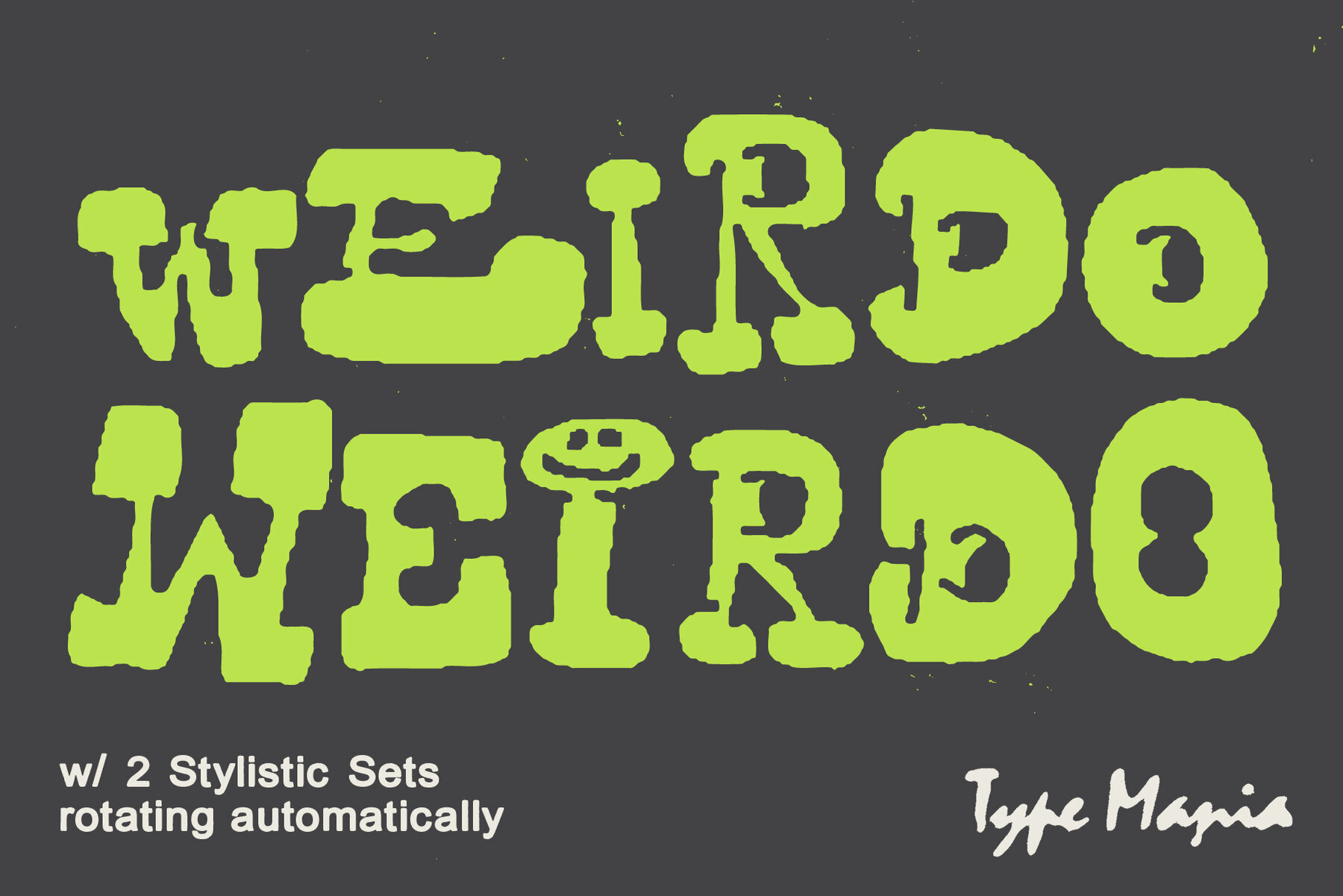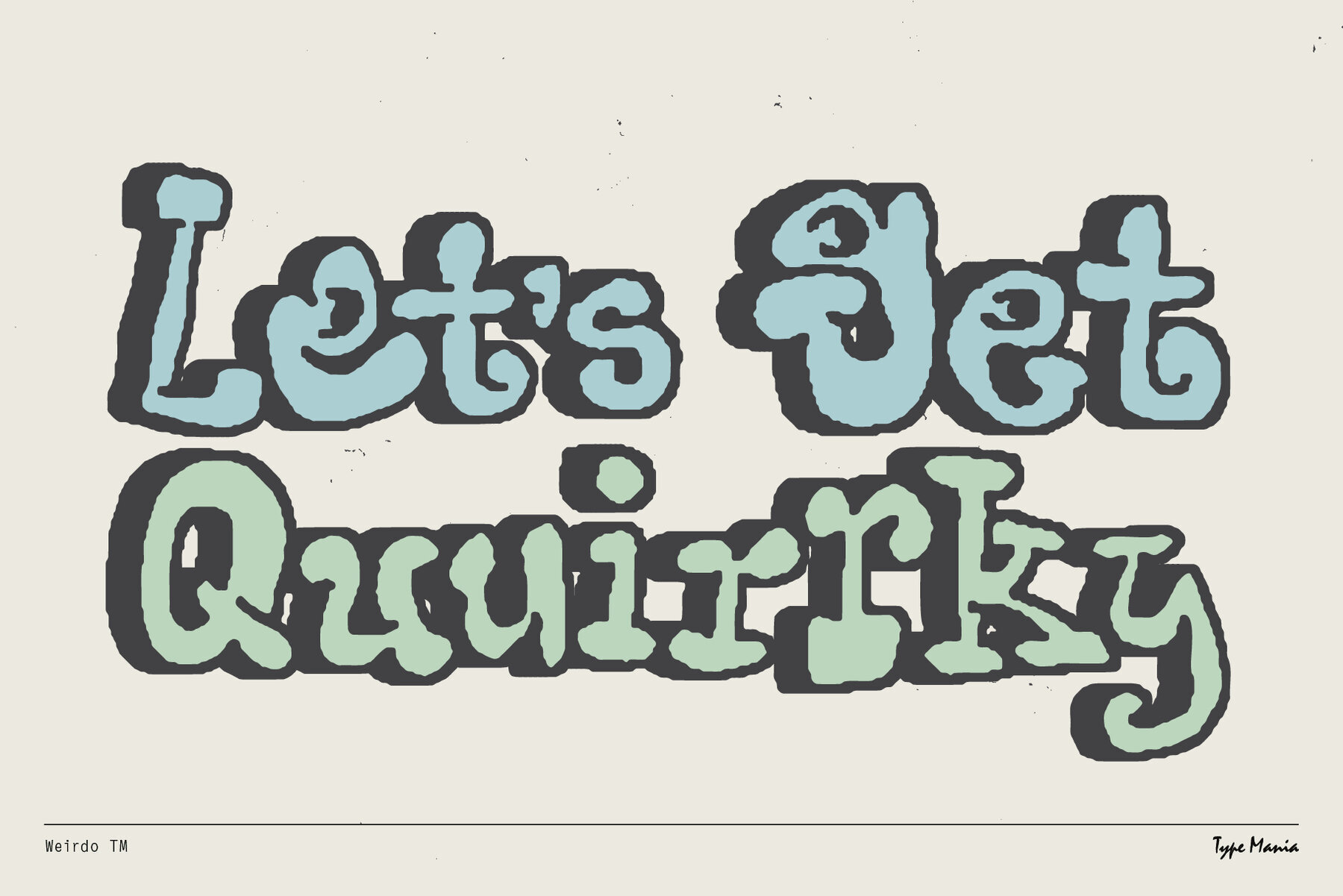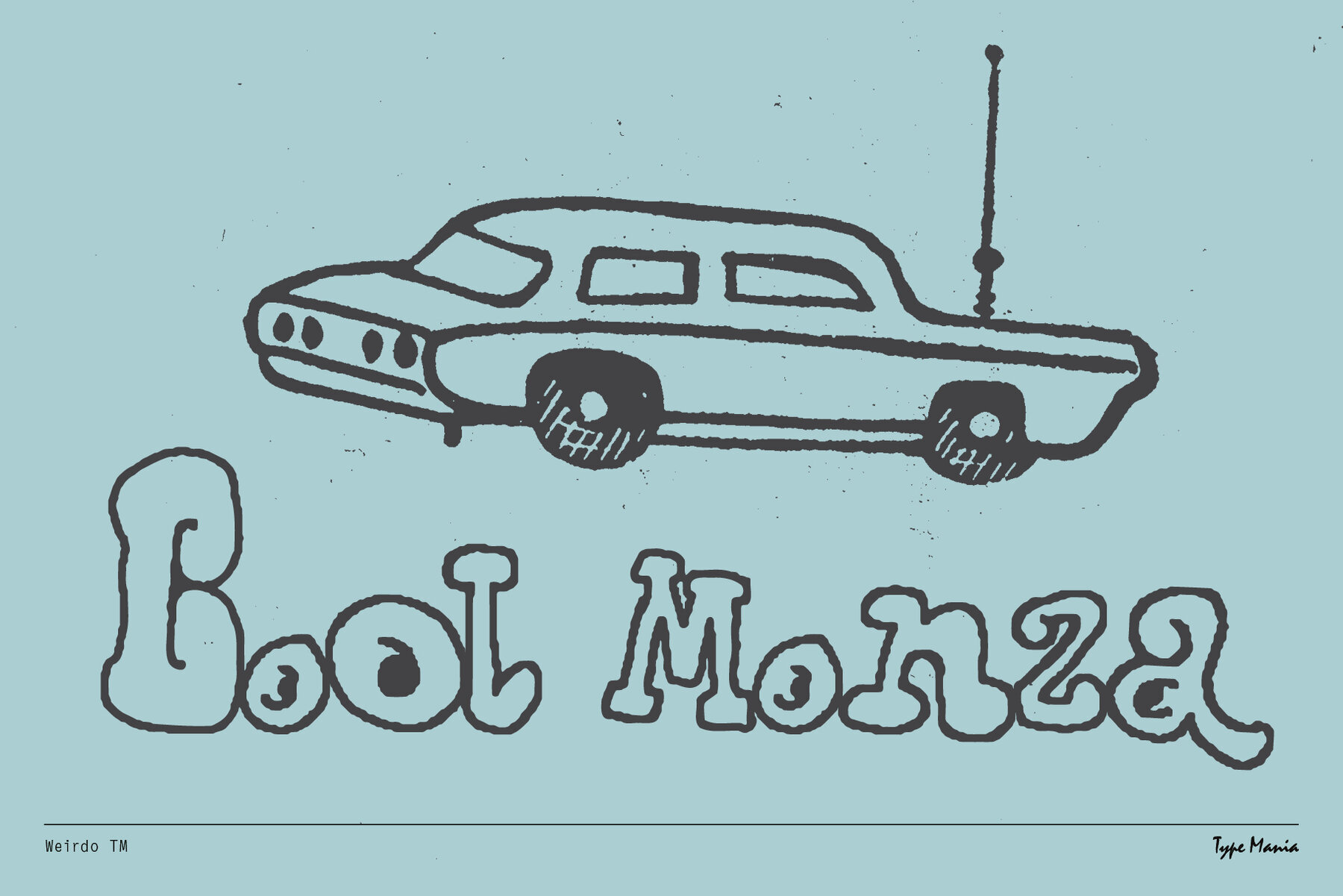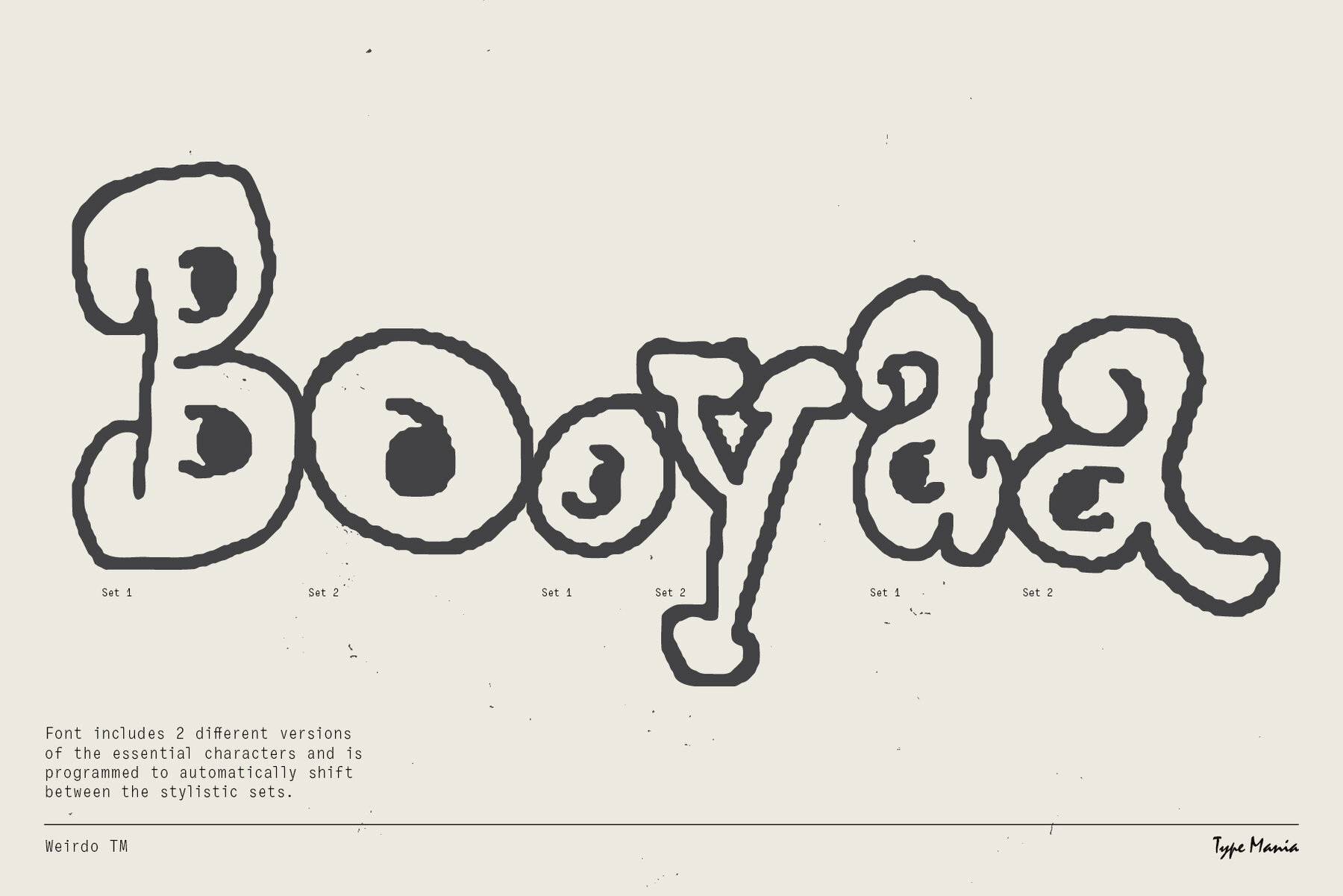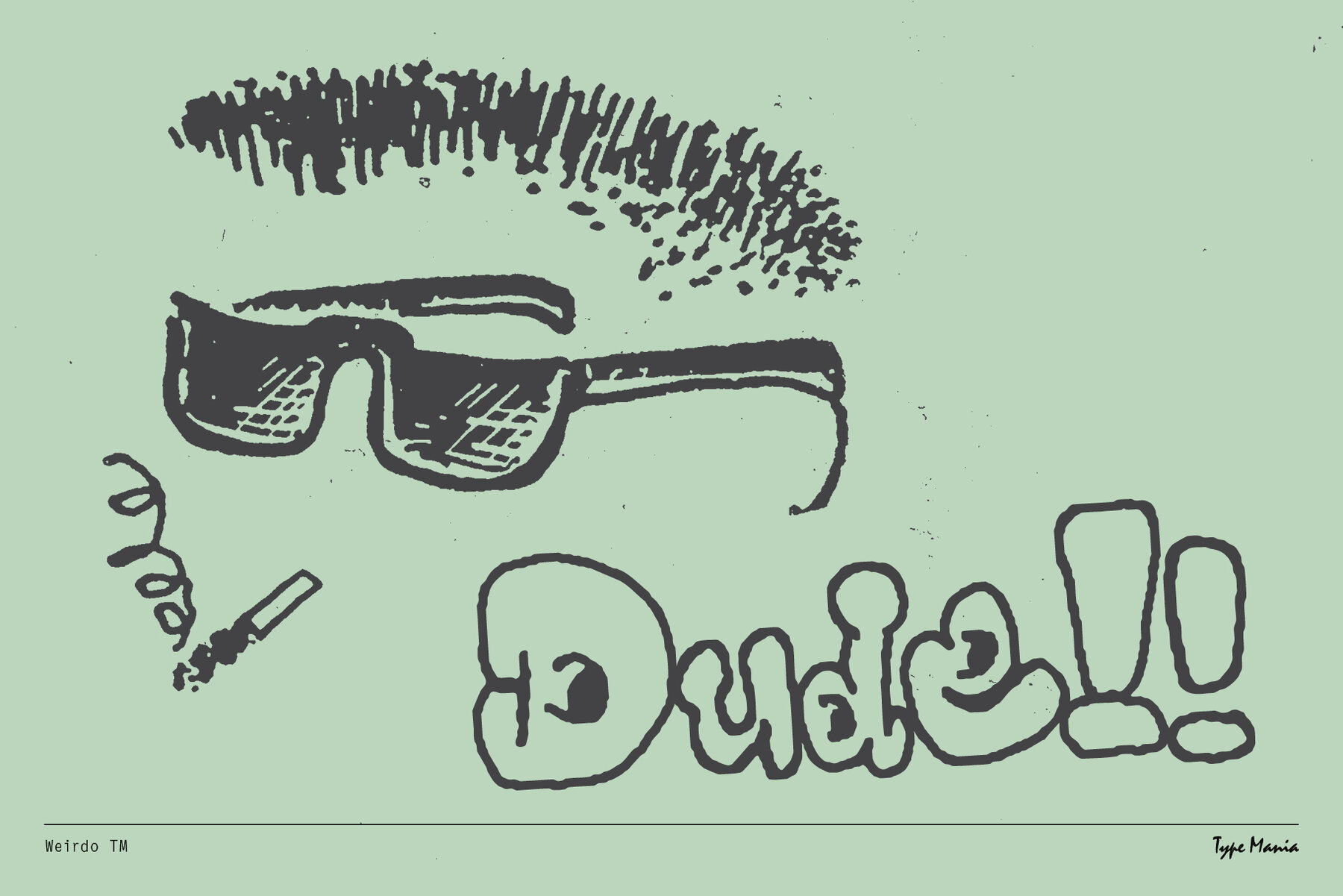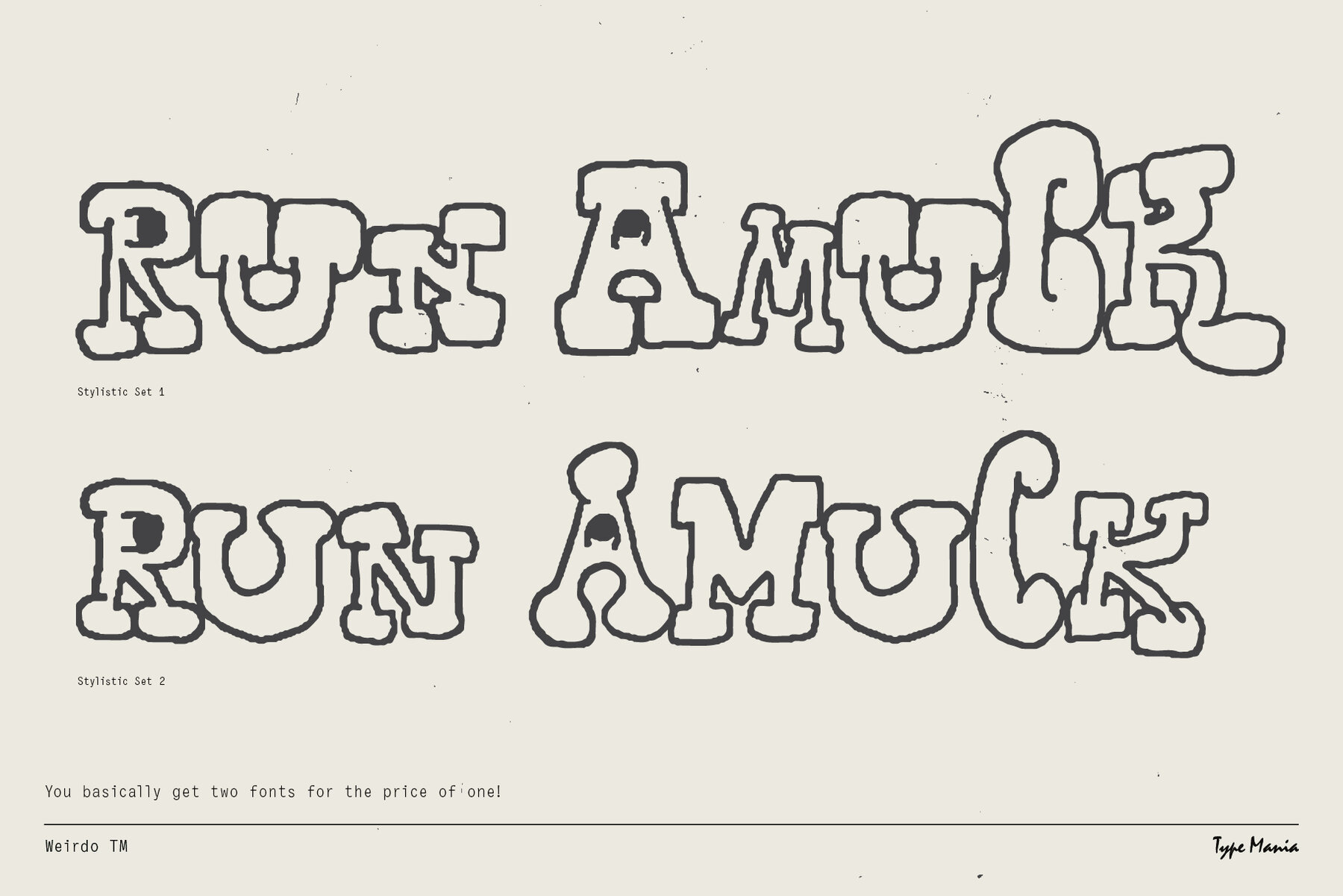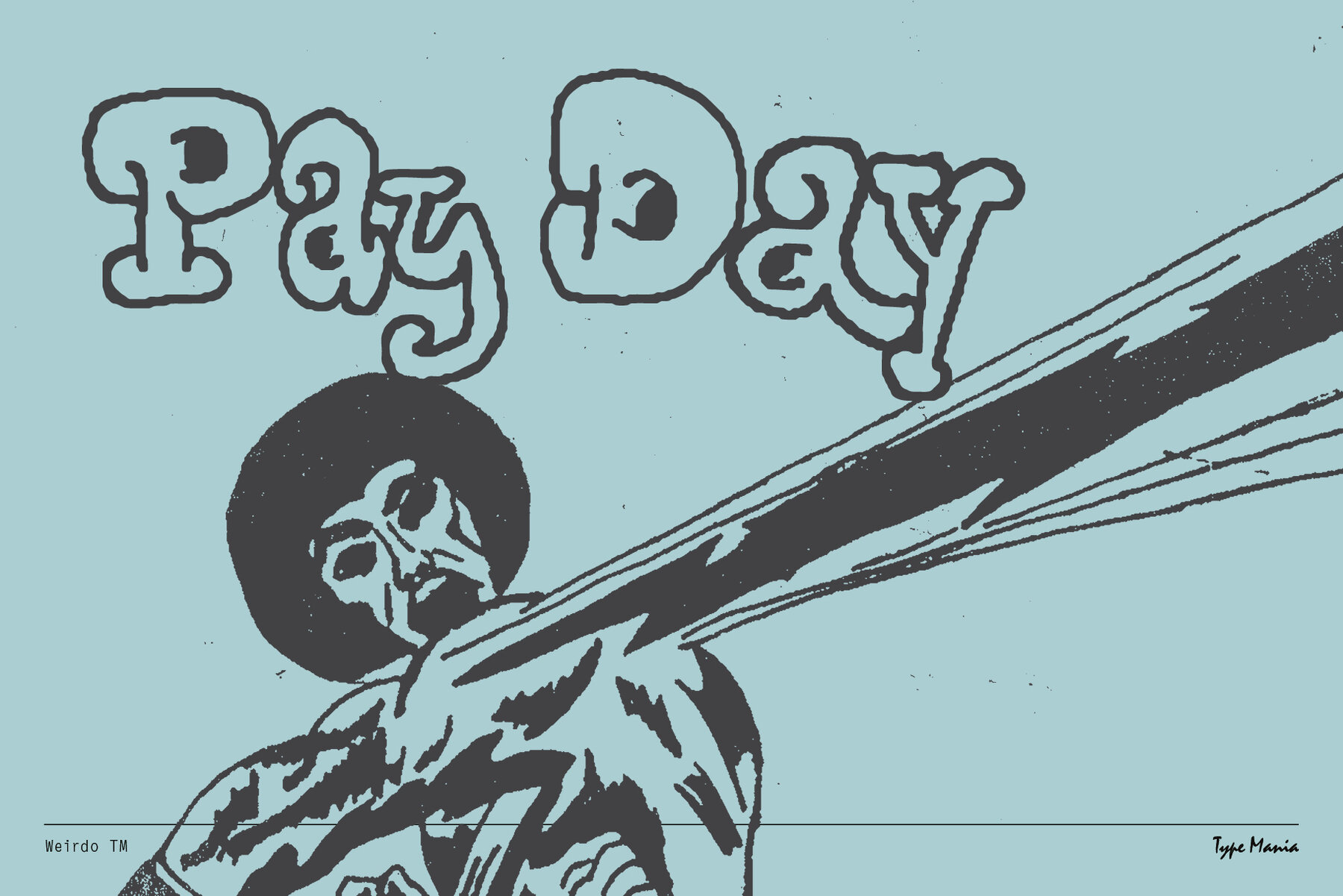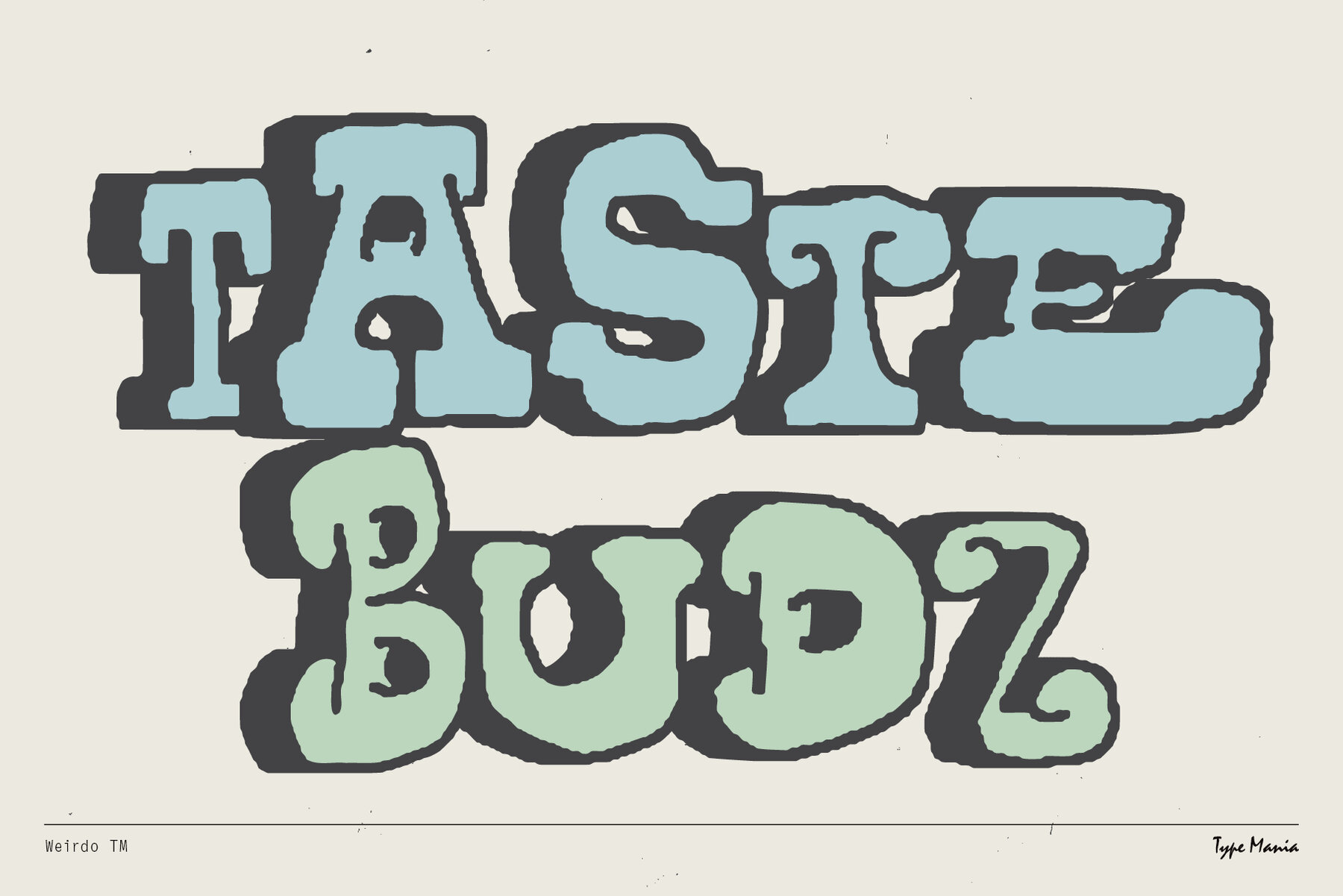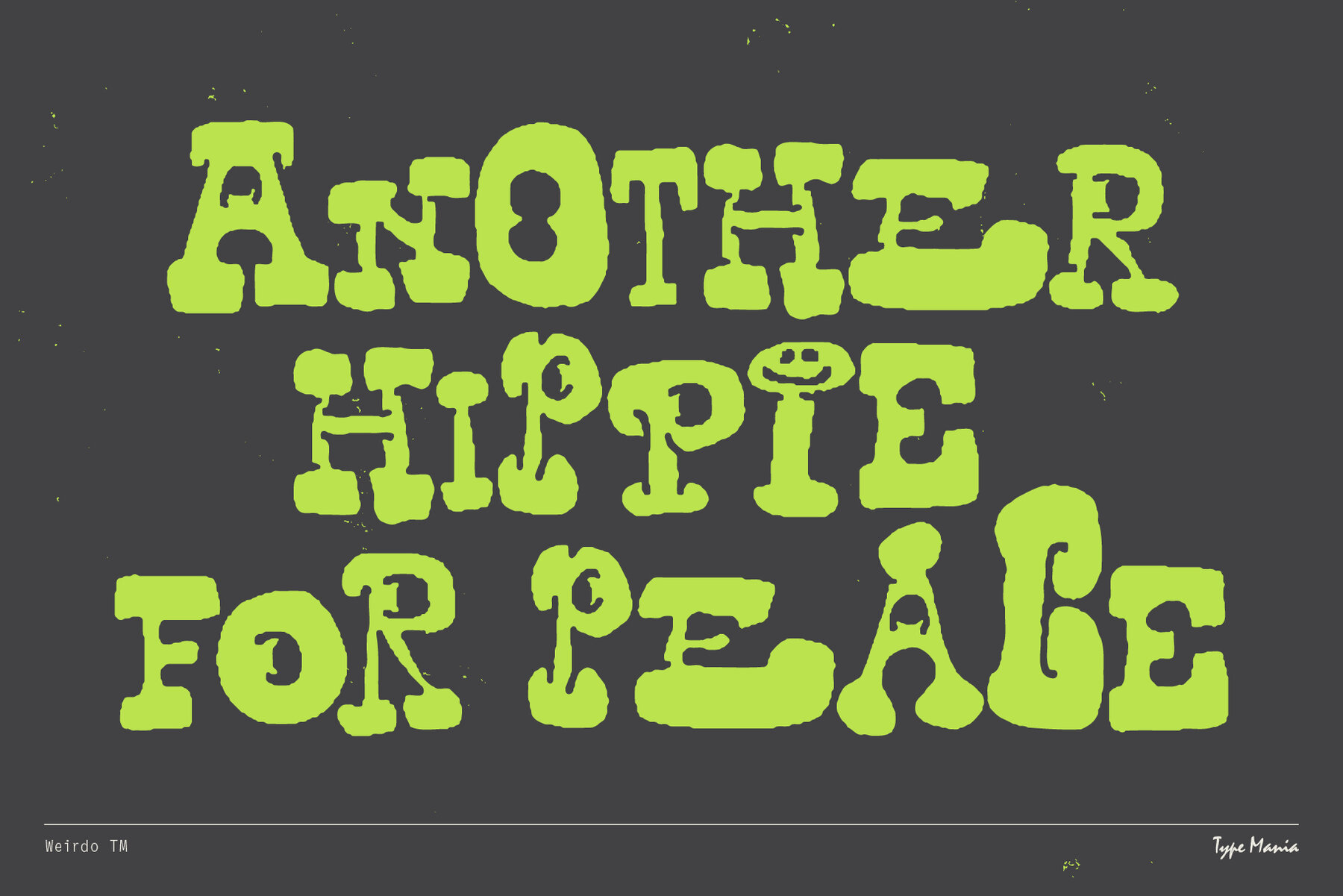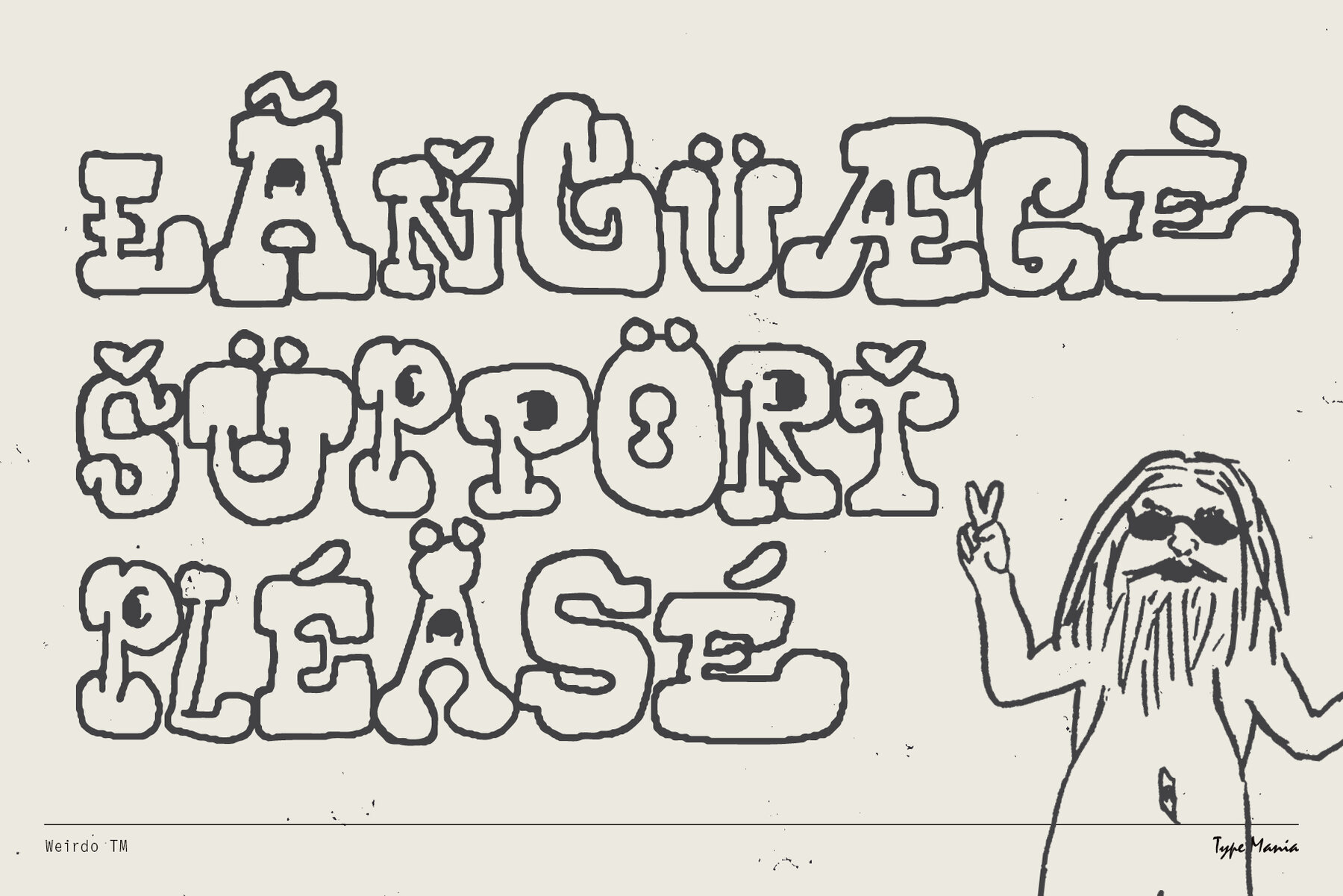
Weirdo TM Font
Weirdo TM Regular
Unleash your inner fReAk with the delightfully odd Weirdo TM. Unpredictable, unconventional, and unruly – this handwritten font seasons you design with that extra sauce. OpenType features Languages Graphic Design is Easy (with Type Mania)®